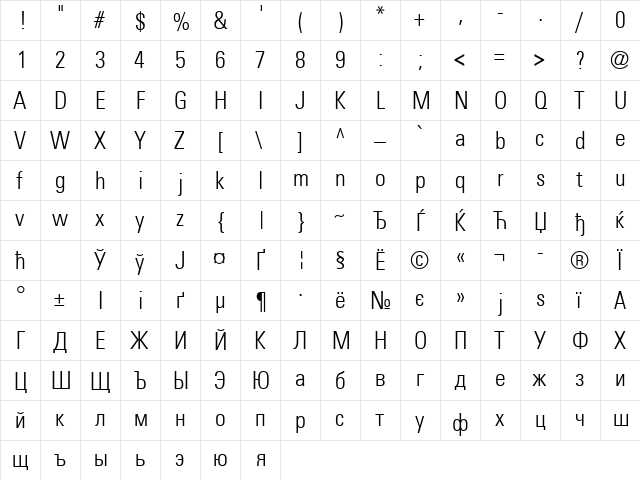
PartnerCondensedLight Normal
Design Context for PartnerCondensedLight Typeface
PartnerCondensedLight is a composed and adaptable typeface that performs quietly and consistently across a wide range of design contexts. The delicate stroke weight brings airiness and refinement to layouts. Its narrow stance lets it pack a punch even in space-constrained designs.